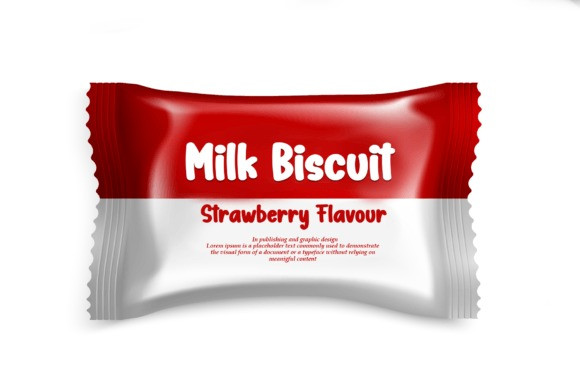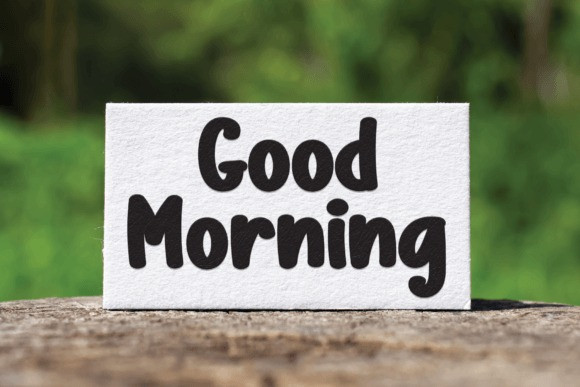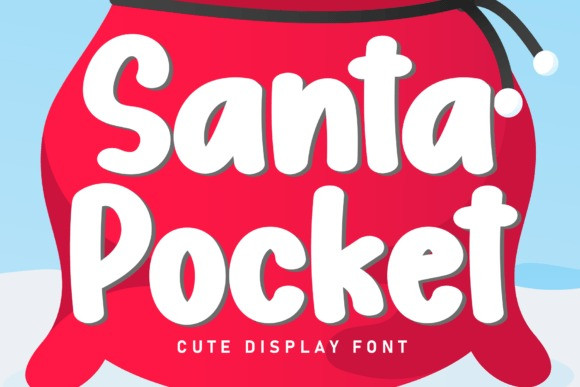
Santa Pocket Font
Santa Pocket Font is a sweet and friendly display font. Cute and fun, this font is ideal for writing wedding invitations, cards, or any other design that might need a fun touch!